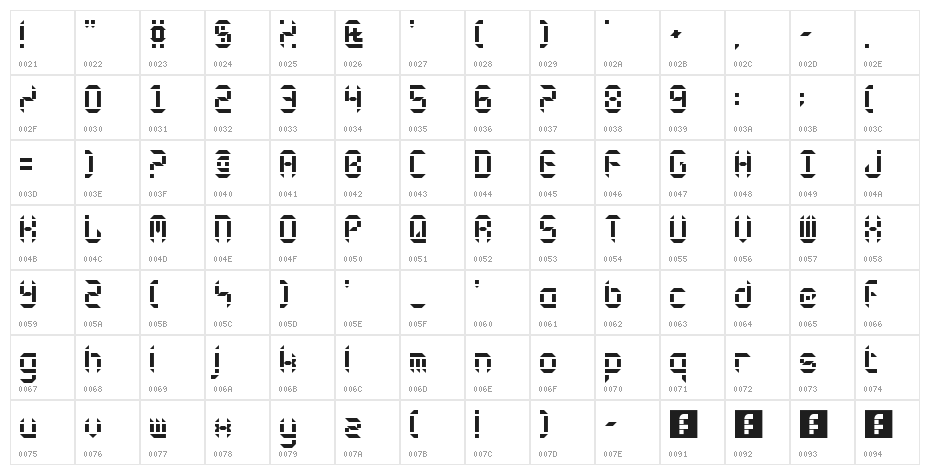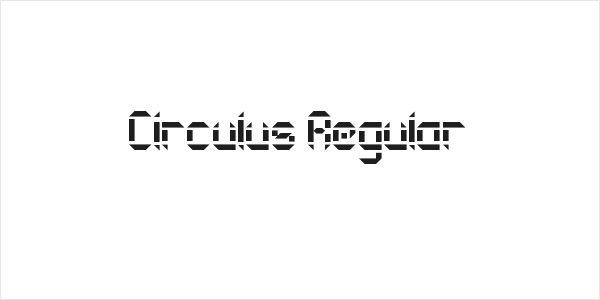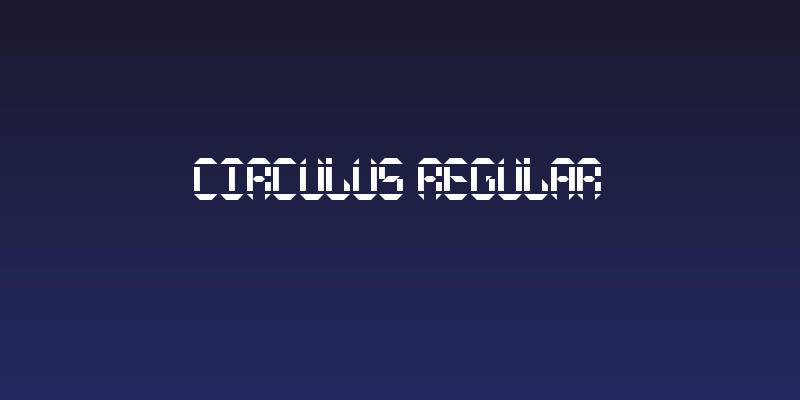
Circulus Regular Font
Circulus Regular Description
This font features a bold, geometric design with a futuristic and digital aesthetic. The characters are constructed using a series of angular shapes and lines, creating a highly stylized and abstract appearance. The font's unique structure gives it a distinctive, modern look that is both eye-catching and unconventional. The uppercase and lowercase letters maintain a consistent style, with sharp edges and a blocky form that suggests a sense of strength and stability. The numerals and special characters follow the same design principles, ensuring a cohesive visual identity across all glyphs. This font is ideal for projects that require a bold statement or a cutting-edge, tech-inspired theme.
| Use Case | Logos, Headlines, Posters |
| Proposed Projects | Ideal for tech-themed designs, video game graphics, futuristic branding, and digital art projects. |